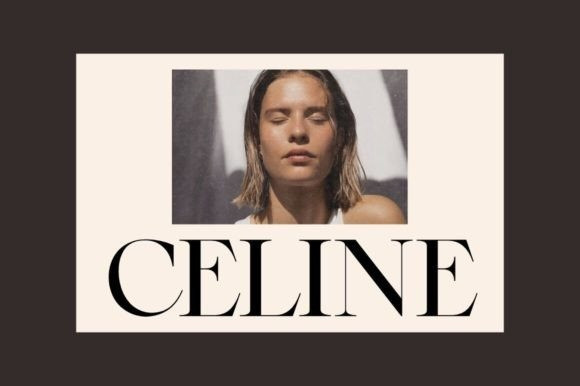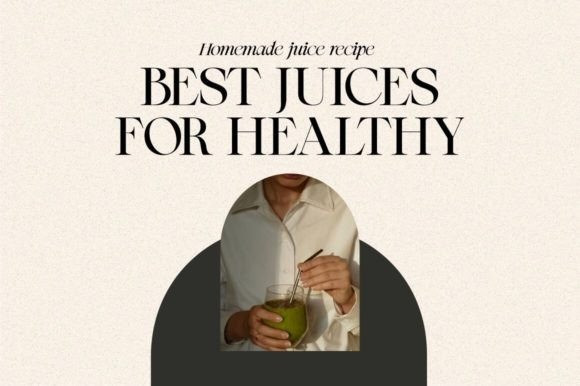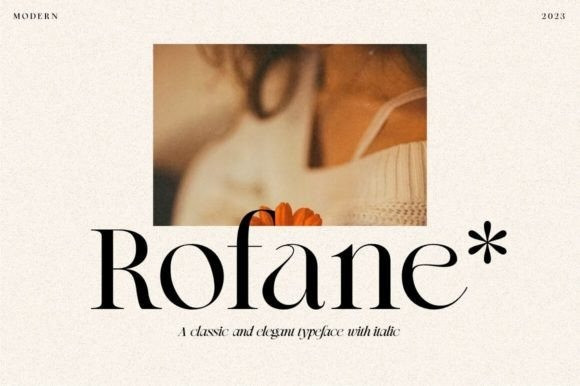
Rofane Font
Rofane Font, a classy and modern typeface that exudes timeless charm and elegance, designed with tight kerning and spacing to achieve a more aesthetic appearance. Available in 2 styles, regular and italic, it will add a luxury spark to any design project that you wish to create!
Rofane Typeface is perfectly suitable for a layout design for quotes or body copy, best used as a display for headings, logos, branding, magazines, product packaging, invitations: logotypes, and much more.